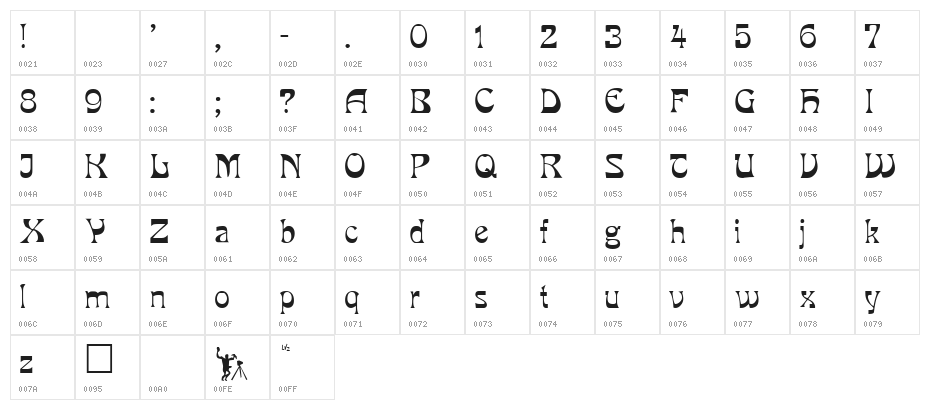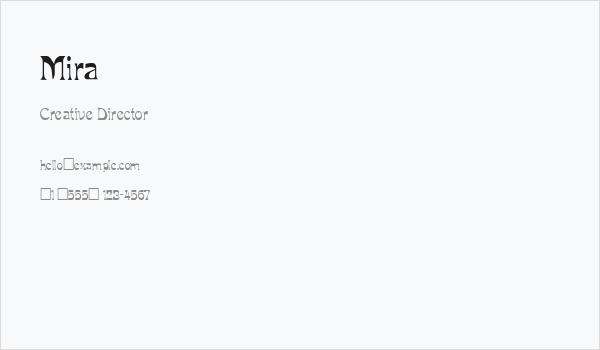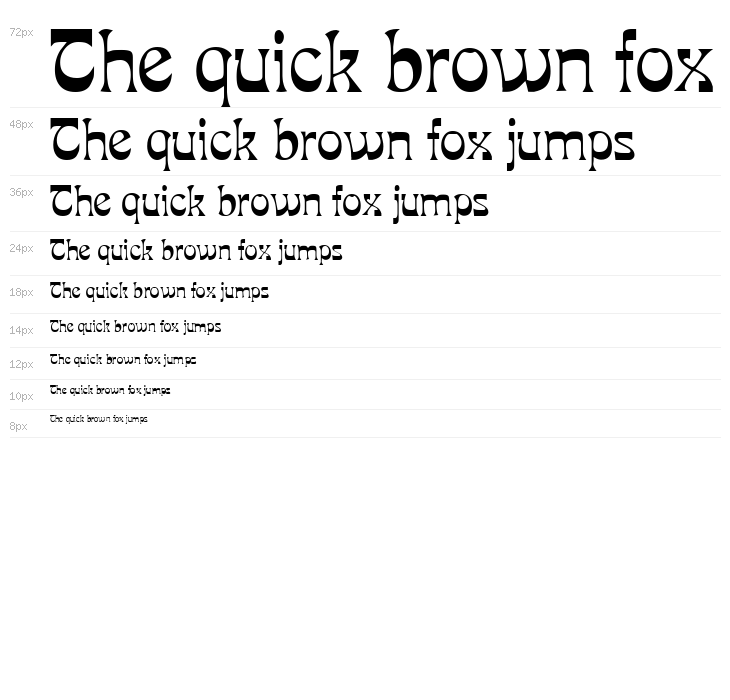
Mira Font
Mira Description
This font features a unique blend of modern and vintage elements, characterized by its sharp, angular serifs and bold, dramatic strokes. The uppercase letters exhibit a strong presence with their wide, sweeping curves and pointed edges, while the lowercase letters maintain a consistent style with slightly softer curves. The numerals are distinct and easily readable, maintaining the font's overall bold aesthetic. Special characters are designed with the same attention to detail, ensuring a cohesive look across all glyphs. This font's striking appearance makes it ideal for projects that require a strong visual impact.
| Overall Style | Modern, Vintage |
| Proposed Projects | Ideal for branding, headlines, posters, and any design requiring a bold statement. |